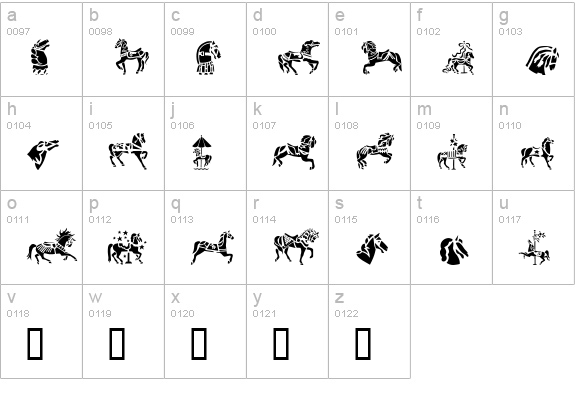
GE Carousel Horses Font Details
The GE Carousel Horses font is a whimsical and enchanting typeface that captures the essence of a classic carousel ride. Each letter is intricately designed to resemble the ornate and colorful horses found on a carousel, adding a touch of nostalgia and charm to any project. With its playful curves and elegant details, this font is perfect for creating invitations, greeting cards, posters, and more. The best part? GE Carousel Horses font is available for free download at FontsMarket.com. Whether you're a designer looking to add a magical touch to your work or simply a fan of beautiful typography, this font is sure to delight and inspire. Download it today and let your creativity run wild with the enchanting GE Carousel Horses font.